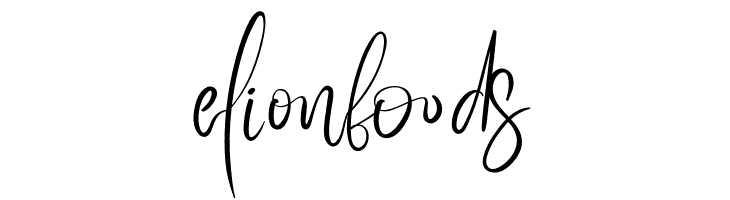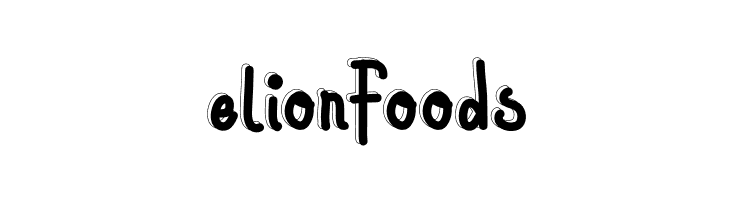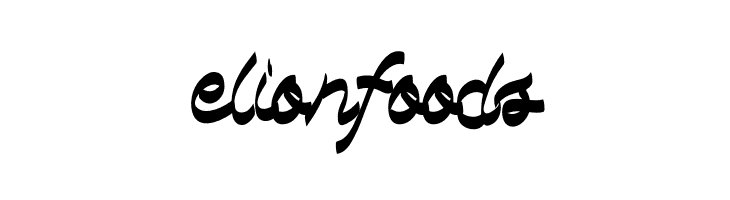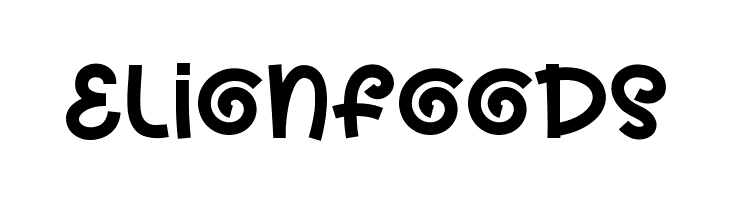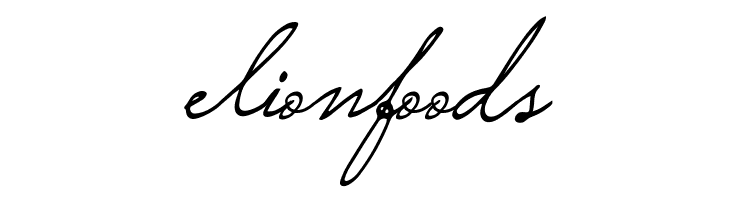
• Better Saturday Personal Use
A lively, expressive handwritten font with flowing cursive letterforms.
• Love Monday
A bold, brush-style font with an energetic and artistic feel.
• Happy Sunday 2
A playful, bold handwritten font with a casual and friendly style.
• Better Day
A playful, handwritten font with smooth, fluid strokes and a casual style.
• Day Best
A dynamic and elegant script font with flowing, cursive letterforms.
• Beauty Day
A bold, brush-style font with dynamic, hand-painted strokes.
• Christmas Candy Demo
A bold, playful font with rounded, festive characters ideal for holiday themes.
• Saturday Night Italic
A lively, cursive script font with elegant, flowing connections.
• Betterday Script [Demo]
An elegant and flowing script font with intricate loops and high contrast.
• Betterday
A bold, decorative script font with elegant curves and high contrast.